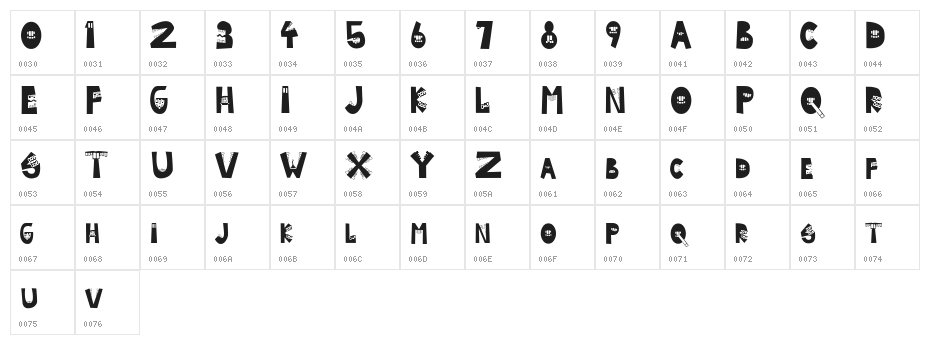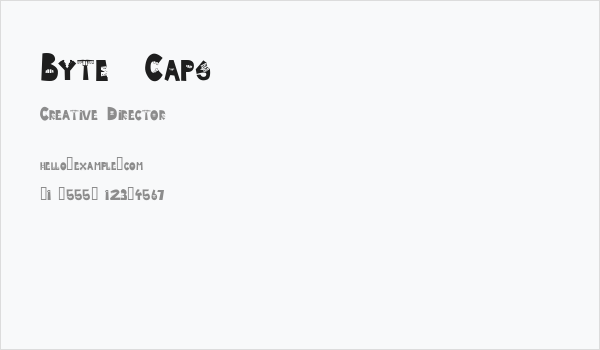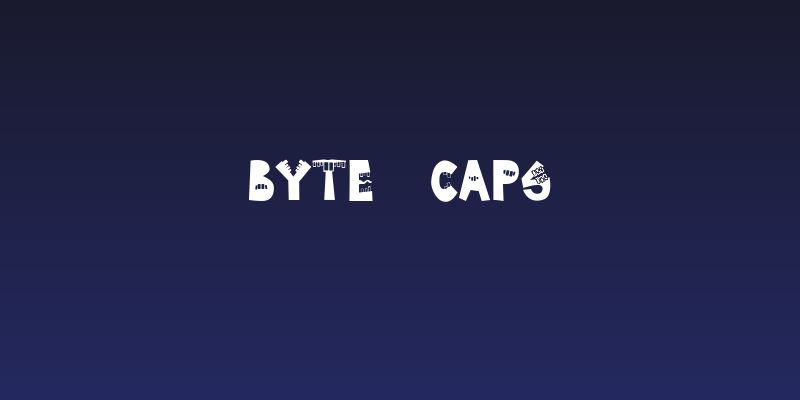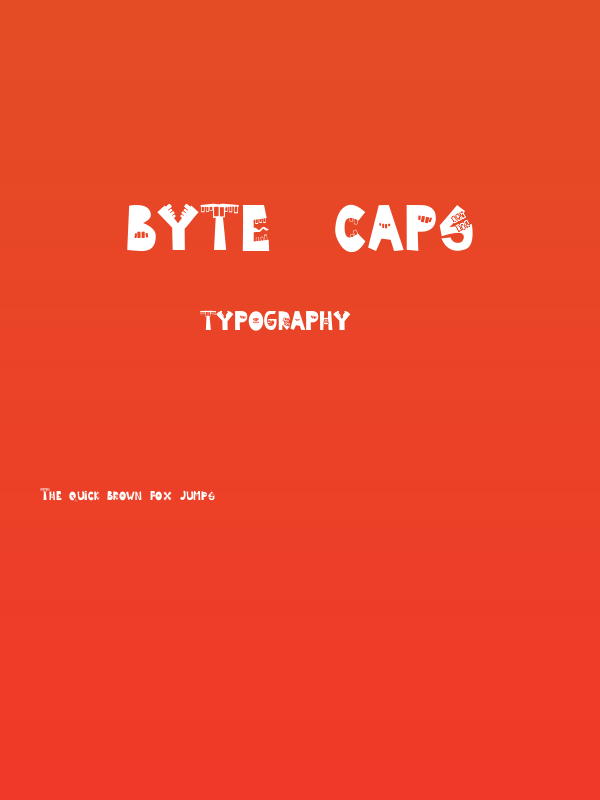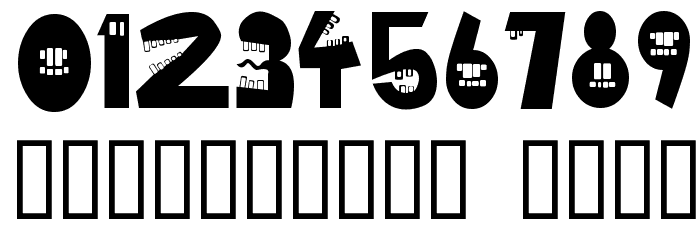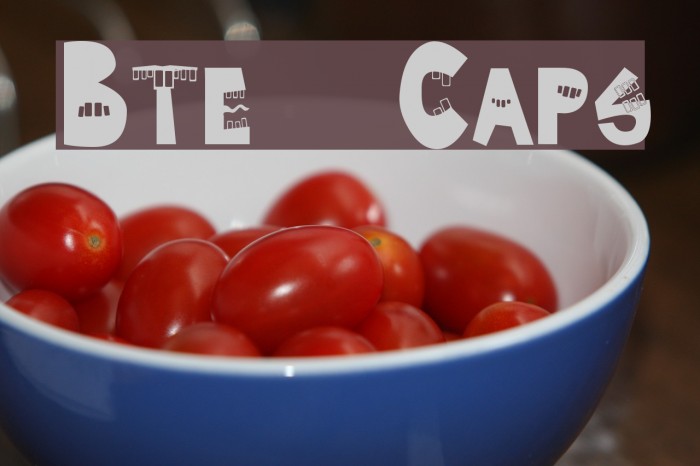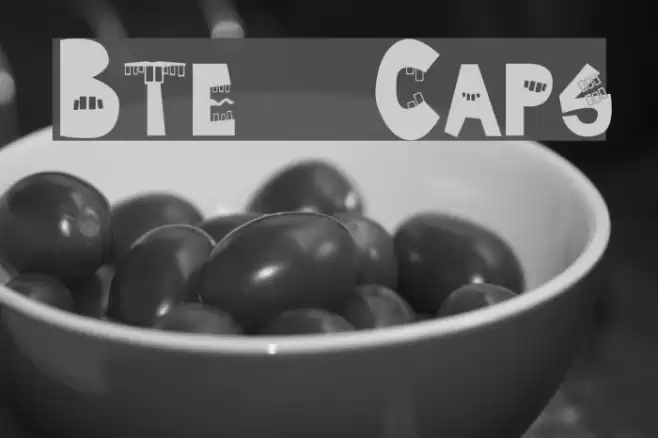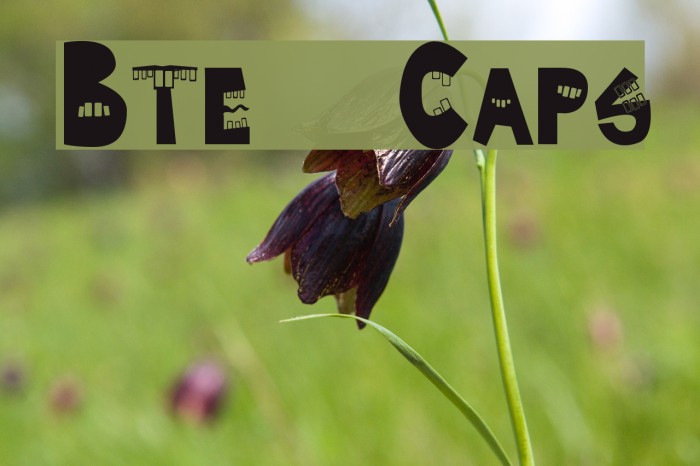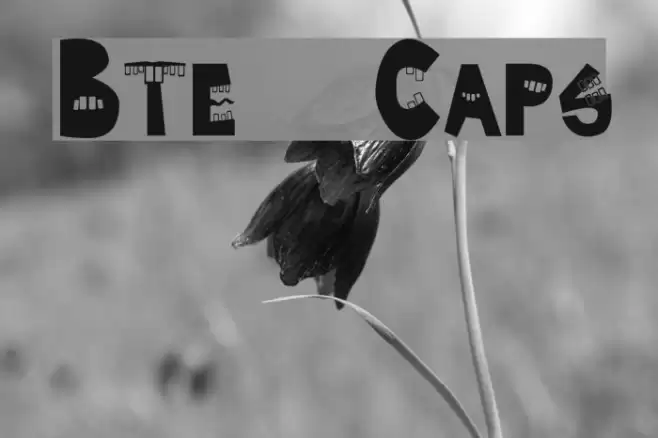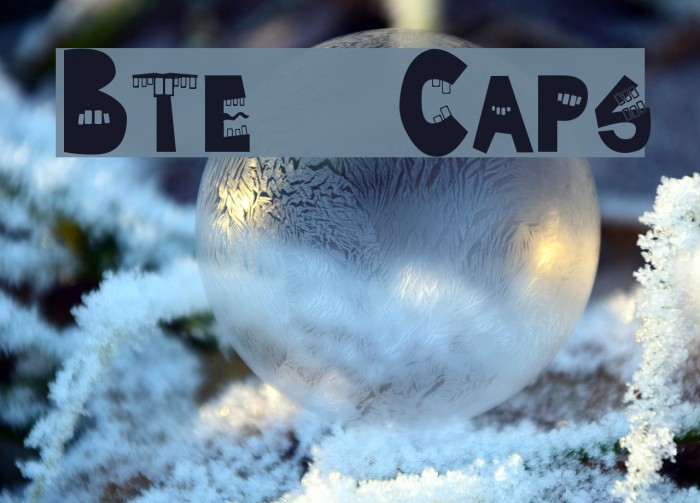
Byte Caps Font
Byte Caps Description
This font features a playful and whimsical design, incorporating elements that resemble digital or pixelated patterns within each character. The letters are bold and have a unique, blocky appearance with intricate details that mimic technological motifs. The overall aesthetic is modern and quirky, making it stand out with its distinctive style. The characters are evenly spaced, ensuring readability while maintaining a fun and engaging look. This font is perfect for projects that aim to capture a tech-savvy or futuristic vibe, appealing to audiences who appreciate creativity and innovation in design.
| Use Case | Logos, Headlines, Posters |
| Proposed Projects | Ideal for tech-related branding, digital art projects, video game titles, and educational materials focused on technology. |